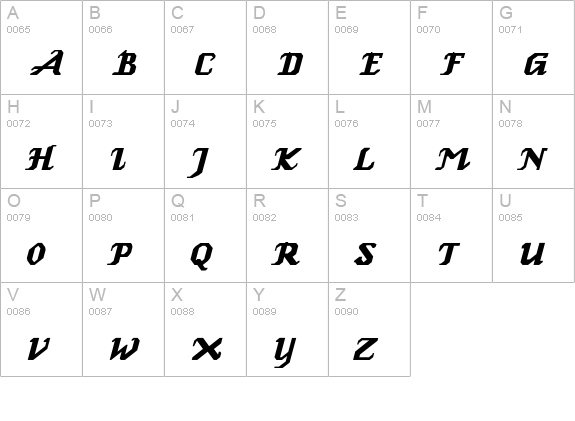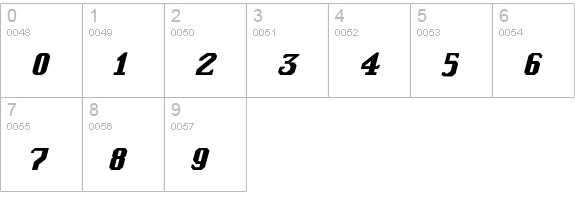
Relbe-Italic Font Details
Relbe-Italic is a distinctive, italic variant in the Relbe typeface family \xE2\x80\x94 well suited to design and typography projects.
Relbe-Italic font is a stunning display font that exudes elegance and sophistication. Its unique italic design adds a touch of flair and creativity to any project. The flowing strokes and delicate curves of this font make it perfect for fashion, beauty, and luxury branding. With a wide range of characters and ligatures, Relbe-Italic font allows for endless design possibilities. Whether you are creating a logo, a headline, or a stylish invitation, this font will make your text stand out with its refined and graceful appearance. One of the best features of Relbe-Italic font is that it is free to download. You can easily access this font and start using it in your designs without any cost. Simply head over to FontsMarket.com and download Relbe-Italic font to add a touch of elegance to your projects. Don't miss out on this amazing opportunity to enhance your designs with a high-quality, freely available font. Download Relbe-Italic font today and let your creativity flow.